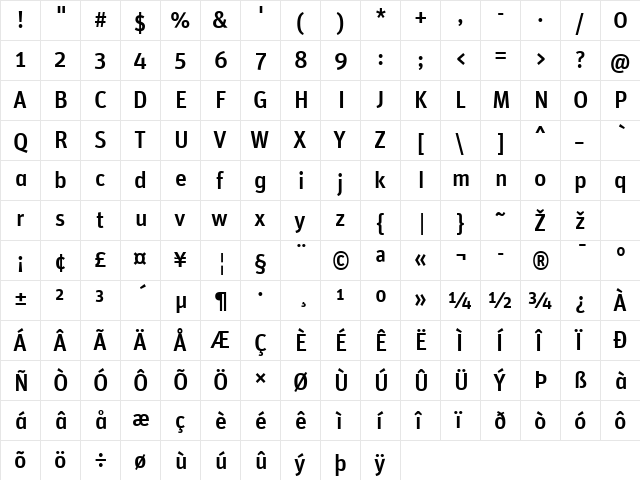
Unit-MediumAlternate Regular
| Designer | Erik Spiekermann, Christian Schwartz |
Design Context for Unit-MediumAlternate Typeface
Unit-MediumAlternate is a composed and adaptable typeface that performs quietly and consistently across a wide range of design contexts.
Pro Tip: Use Unit-MediumAlternate in both headline and body roles to test its range before committing to a single application.